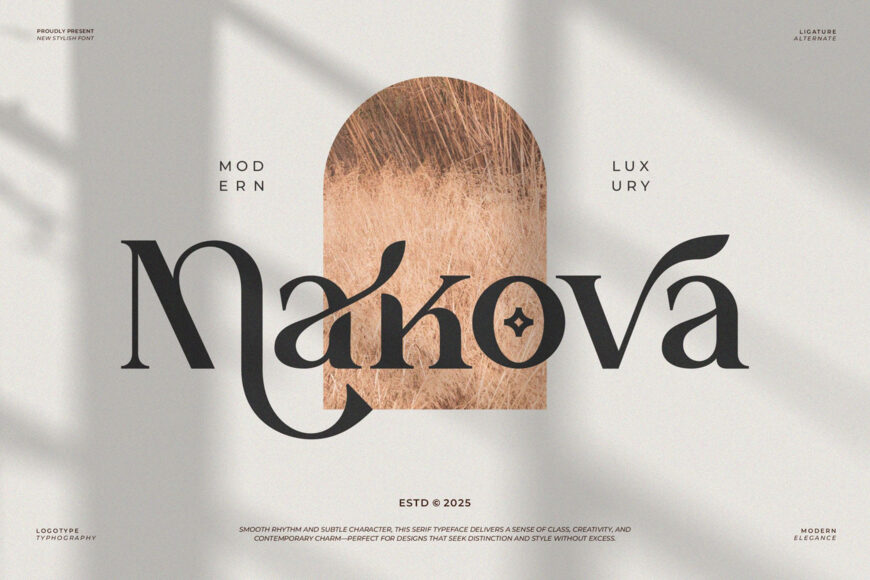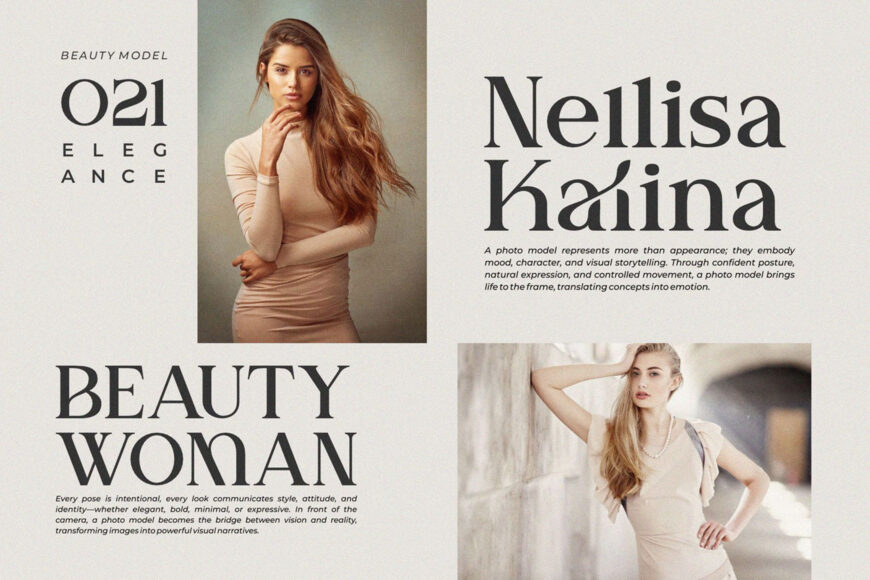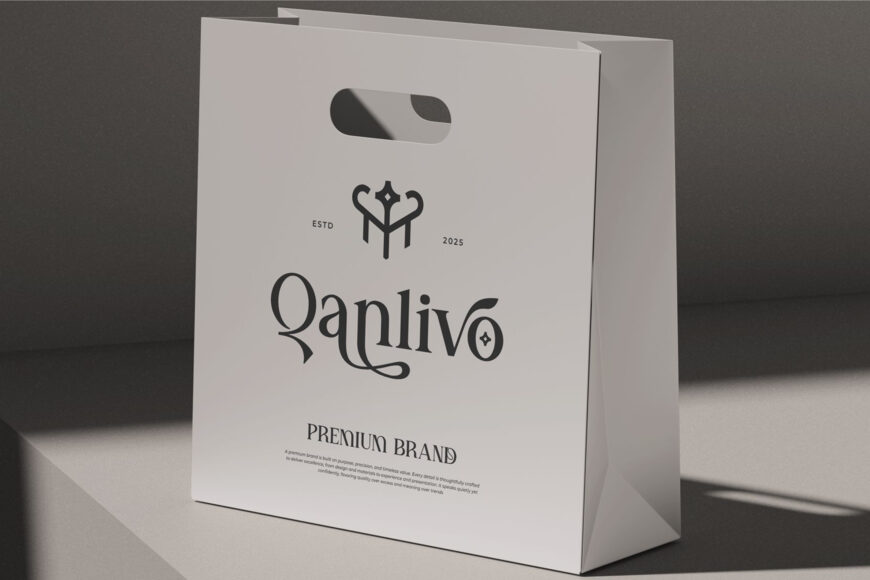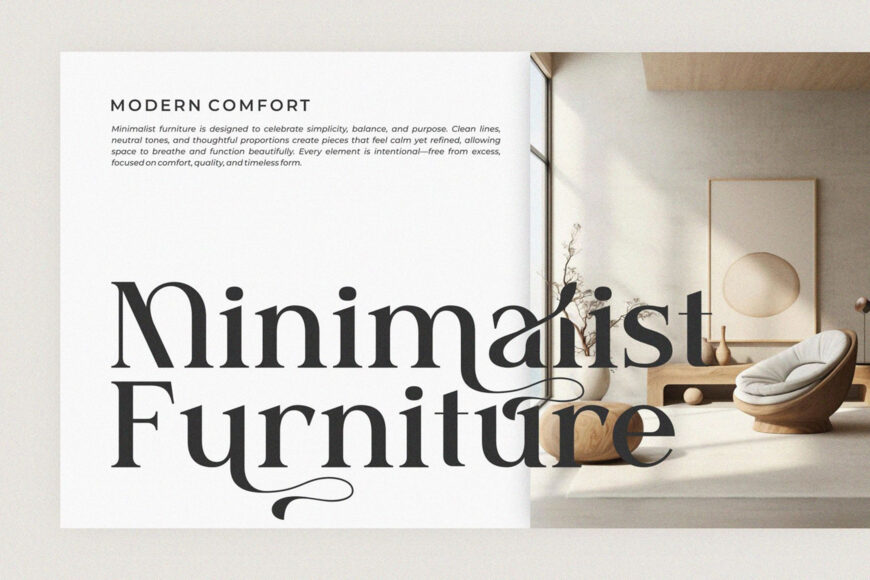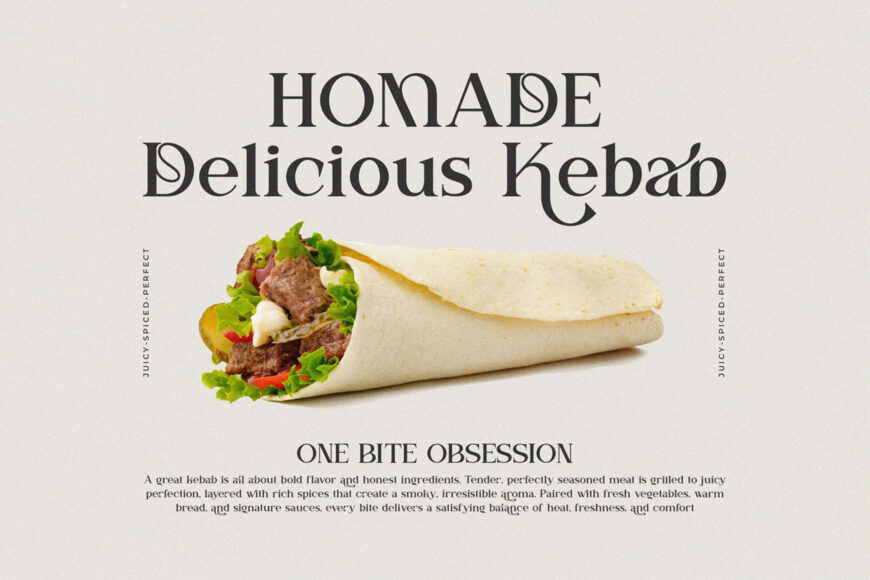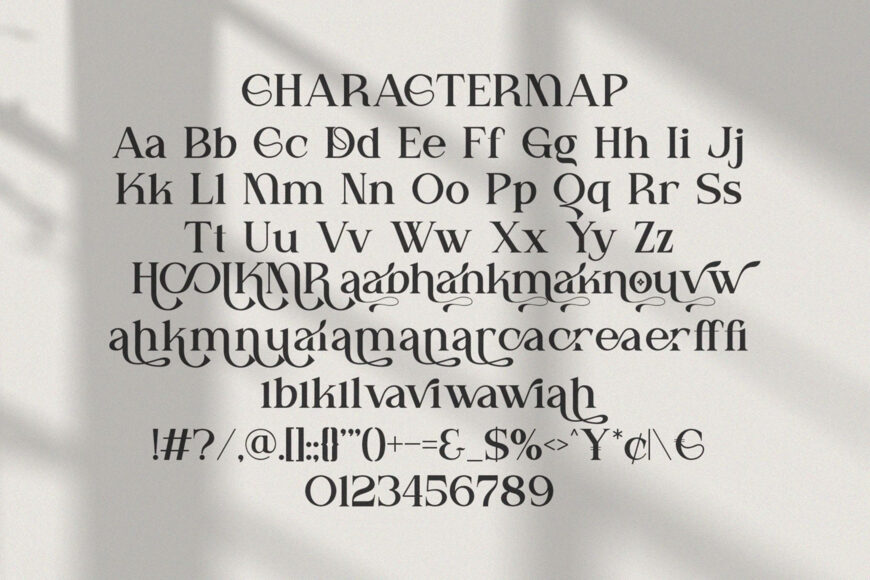
Makova Font
Makova Serif is a modern, minimalist typeface designed for branding and logo projects. Its elegant characters add a refined touch to invitations, logos, movie titles, business cards, book covers, brand names, and more.
With its smooth serif style, Makova Serif brings sophistication and contemporary appeal to every design. The font also features stylish ligatures, making it a versatile choice and an ideal companion for a wide range of creative projects.